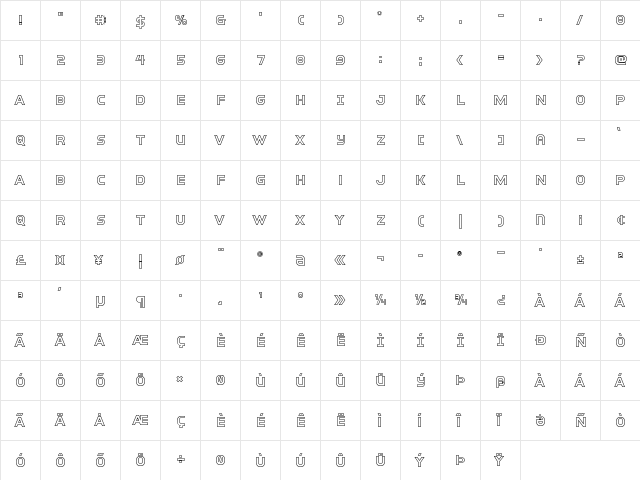
Inter-Bureau Outline Outline
Design Context for Inter-Bureau Outline Typeface
Inter-Bureau Outline brings ornamental detail and strong personality to headlines and identities, where visual impact matters more than quiet functionality.
Font Pairing: Pair with a clean neutral sans-serif for body copy to let Inter-Bureau Outline's character lead without overwhelming the composition.
Pro Tip: Treat Inter-Bureau Outline as the centrepiece of your typographic hierarchy. One strong heading set in a decorative face can carry an entire layout.